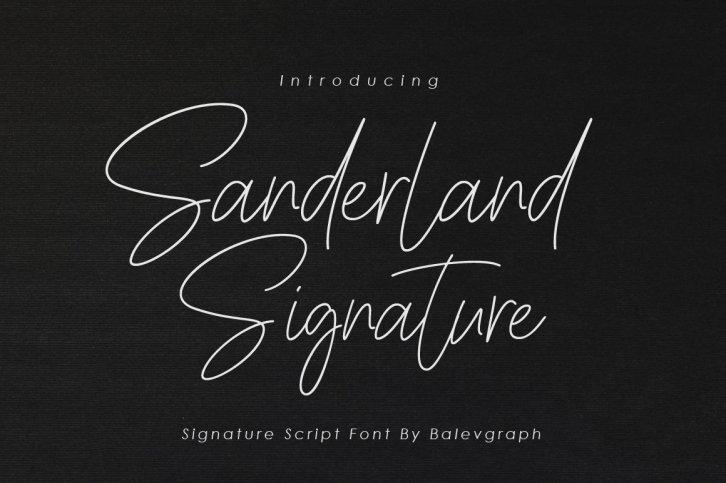
Sanderlaand Signature Script is a trendy and unique font with an authentic style. It was designed by Balevgraph Studio and it's a great choice for creative people who need such a font. It was released on March 26, 2021 and the file size is 12.88 MB. Sanderlaand Signature Script will add an organic vibe to any design idea!